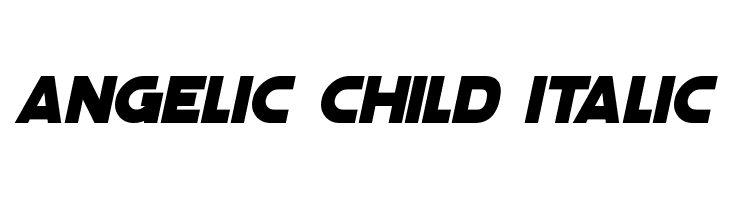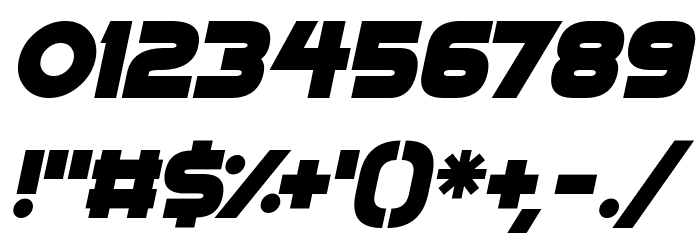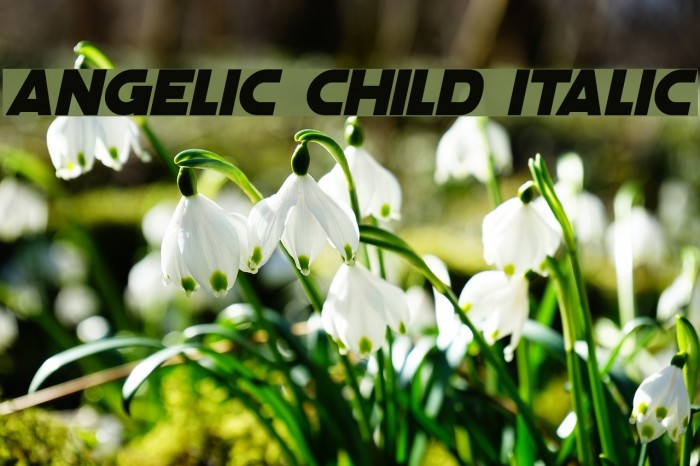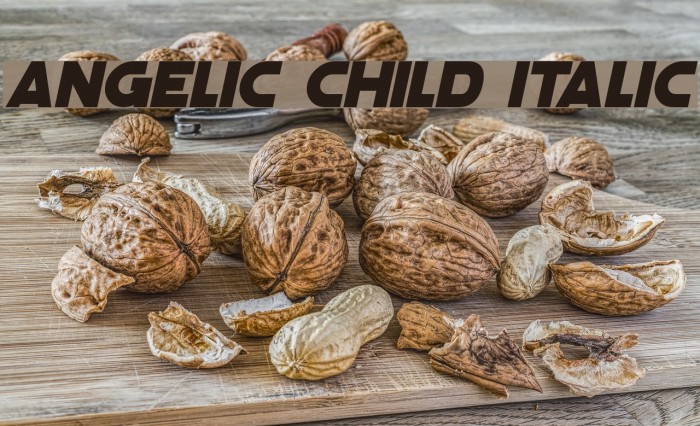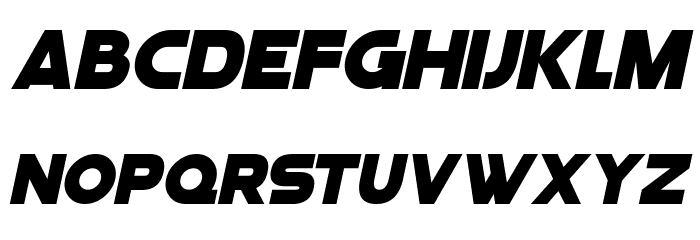
Angelic Child Italic Font
Angelic Child Italic Description
This font features a bold, italicized style with a modern and dynamic appearance. The characters are slightly slanted, giving a sense of motion and energy. The strokes are thick and consistent, contributing to a strong visual impact. The uppercase and lowercase letters maintain a uniform width, enhancing readability. The numbers and special characters are designed to match the boldness and slant of the alphabet, ensuring a cohesive look across all elements. This font is ideal for projects that require a contemporary and assertive typeface.
A bold, italicized font with a modern and dynamic style from Uncategorized fonts.
- Proposed Projects: Ideal for sports branding, dynamic posters, modern advertising, and eye-catching headlines.
- Use Case: Headlines, Logos, Advertising